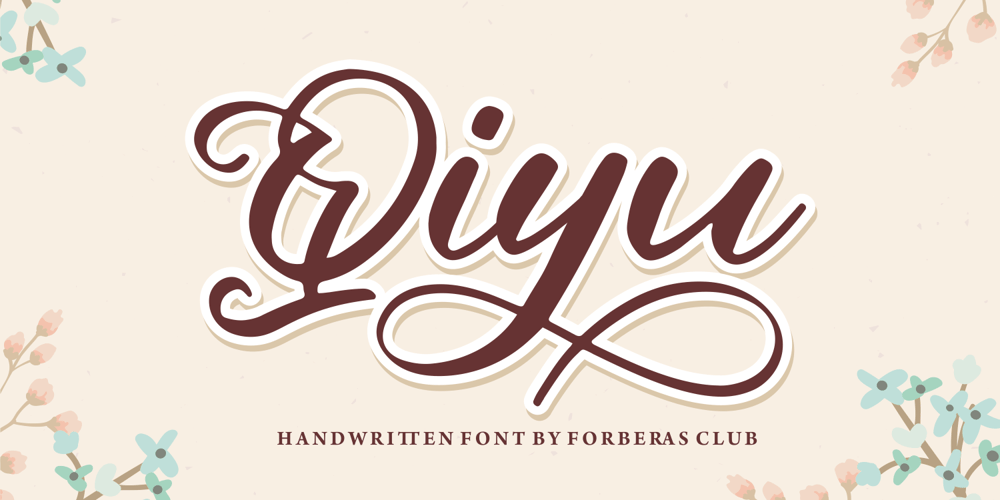
Qiyu
Qiyu font
Qiyu Font Family was designed by ANGGI HERMAWAN and published by Forberas Club. Qiyu contains 1 styles and family package options. Qiyu is modern handwritten.Recommended to use this font for wedding party, invitation, memorable moment, love story and many more with special moment.